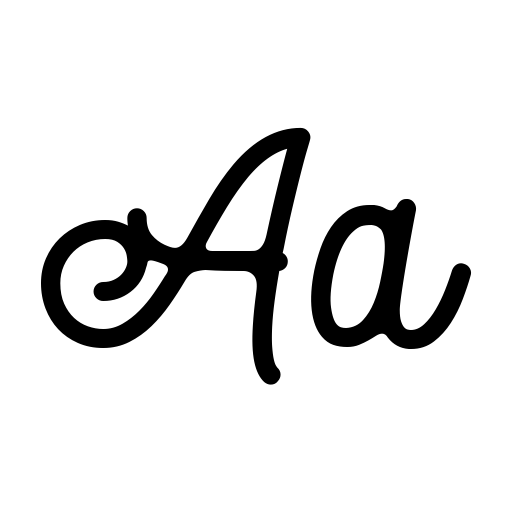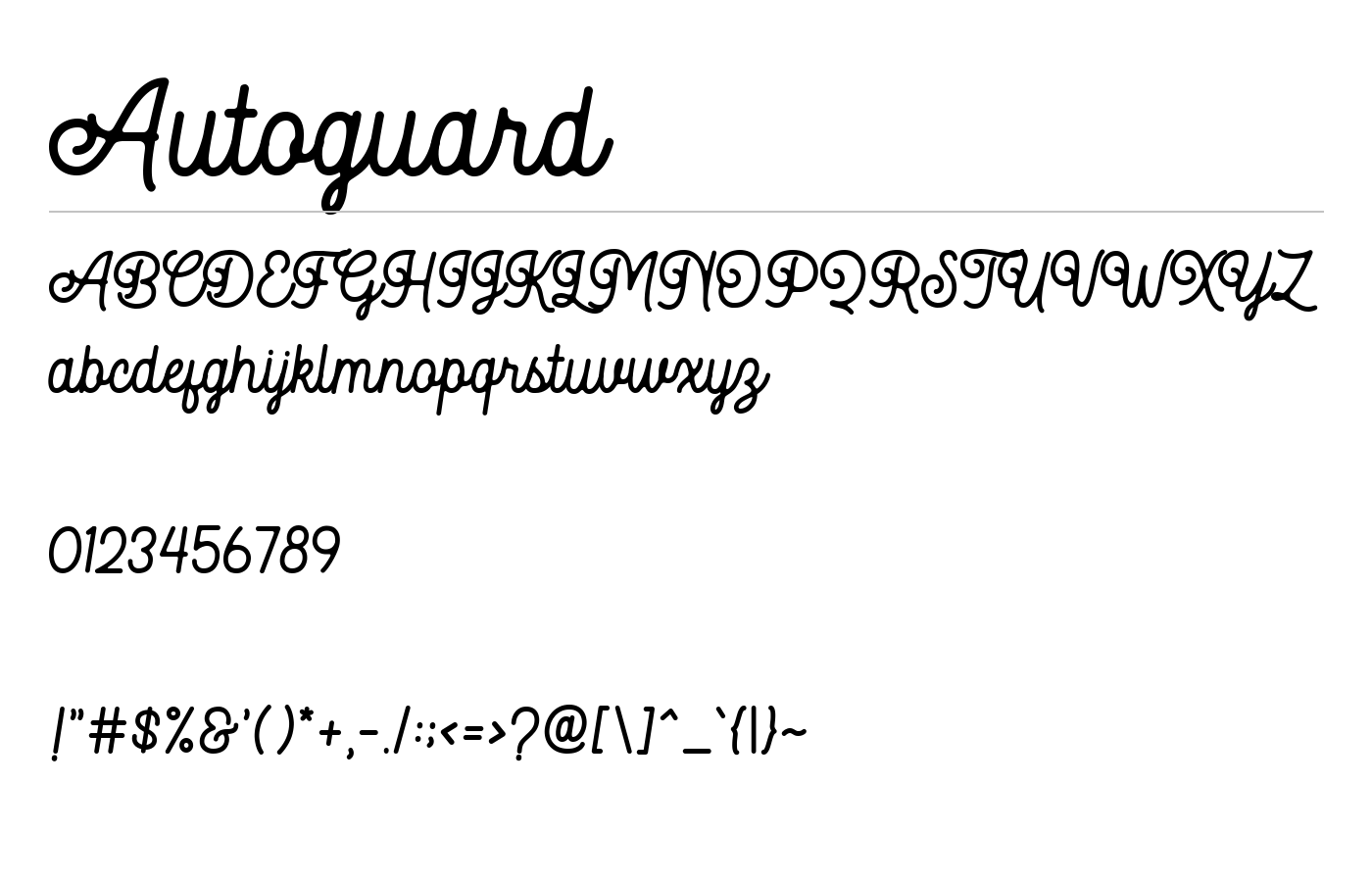
Autoguard is a charming script font with a smooth, connected flow and a medium-light weight that conveys a friendly, approachable vibe. Its rounded, cursive letterforms with subtle flourishes and a consistent stroke width make it ideal for designs that need a casual yet polished look, such as branding for creative, lifestyle, or boutique businesses. This font works great for logos, packaging, and headlines where a personal, handwritten touch is desired.
Autoguard Font
About Autoguard Font
| Font family | Autoguard Font |
| Release date | 2020-04-15 |
| Designer | Teguh Subiyantoro |